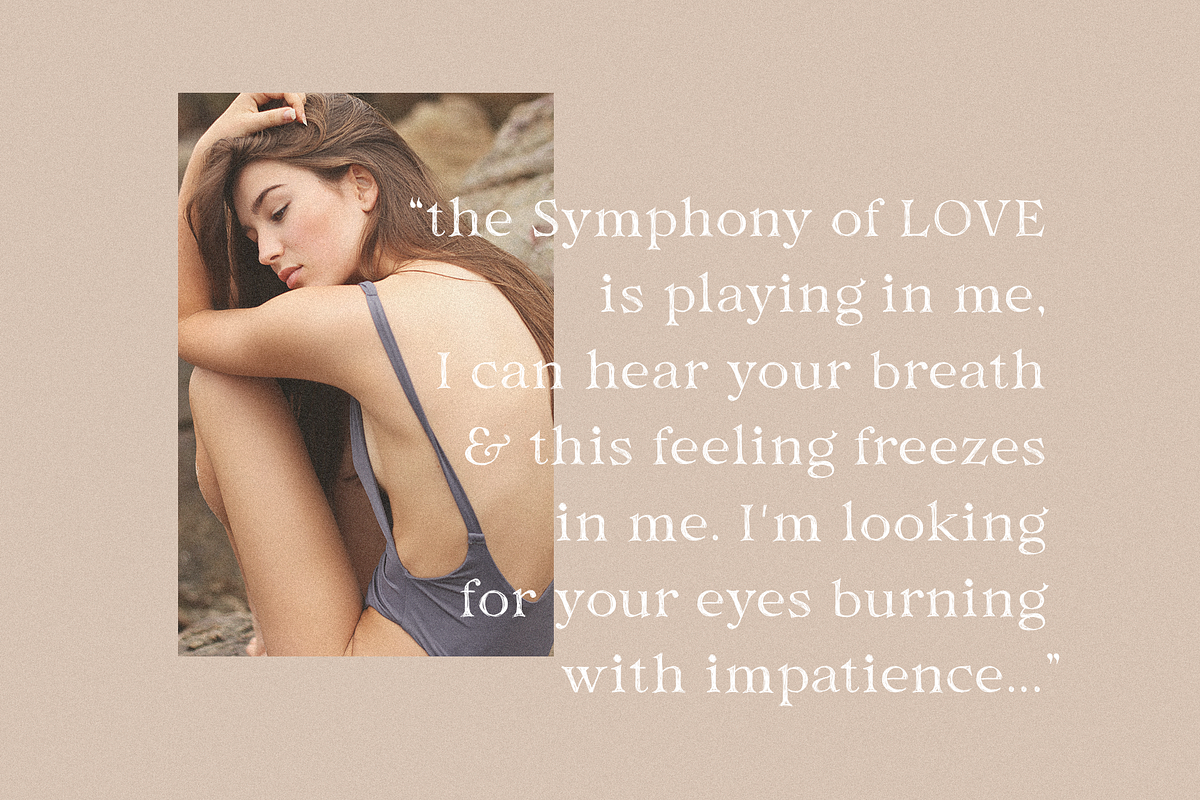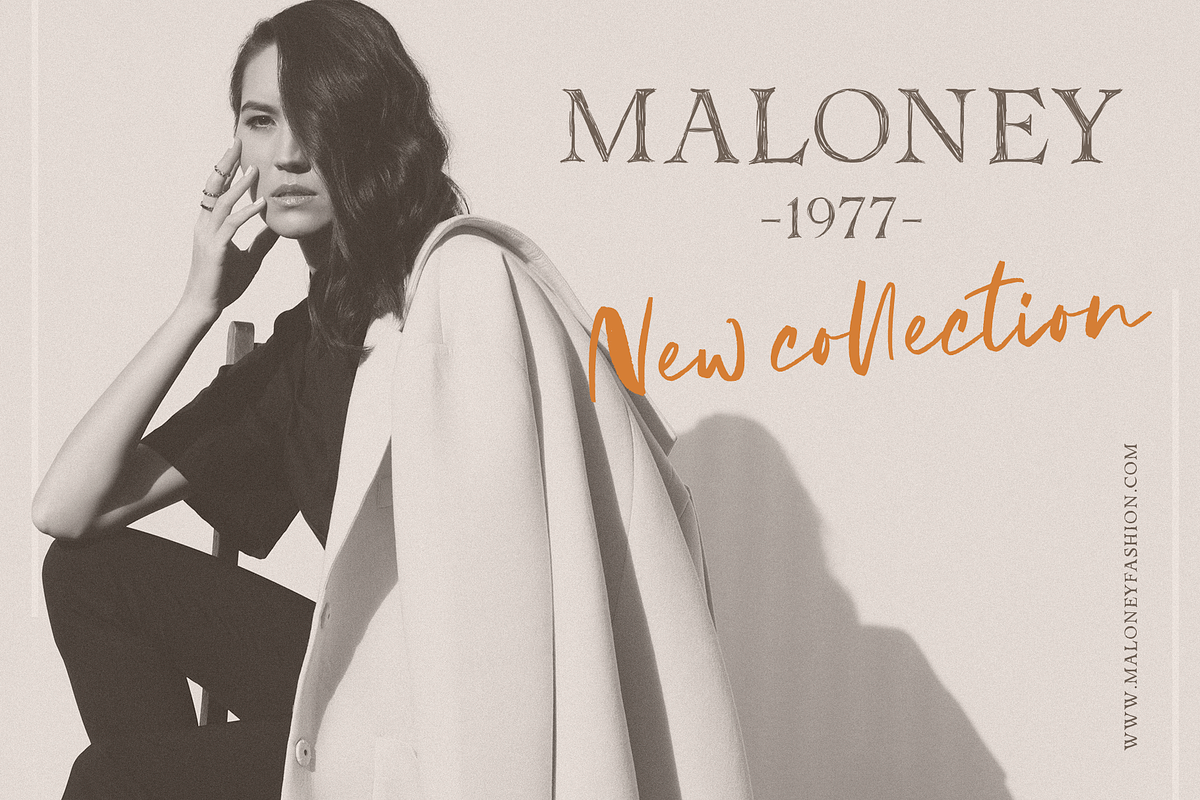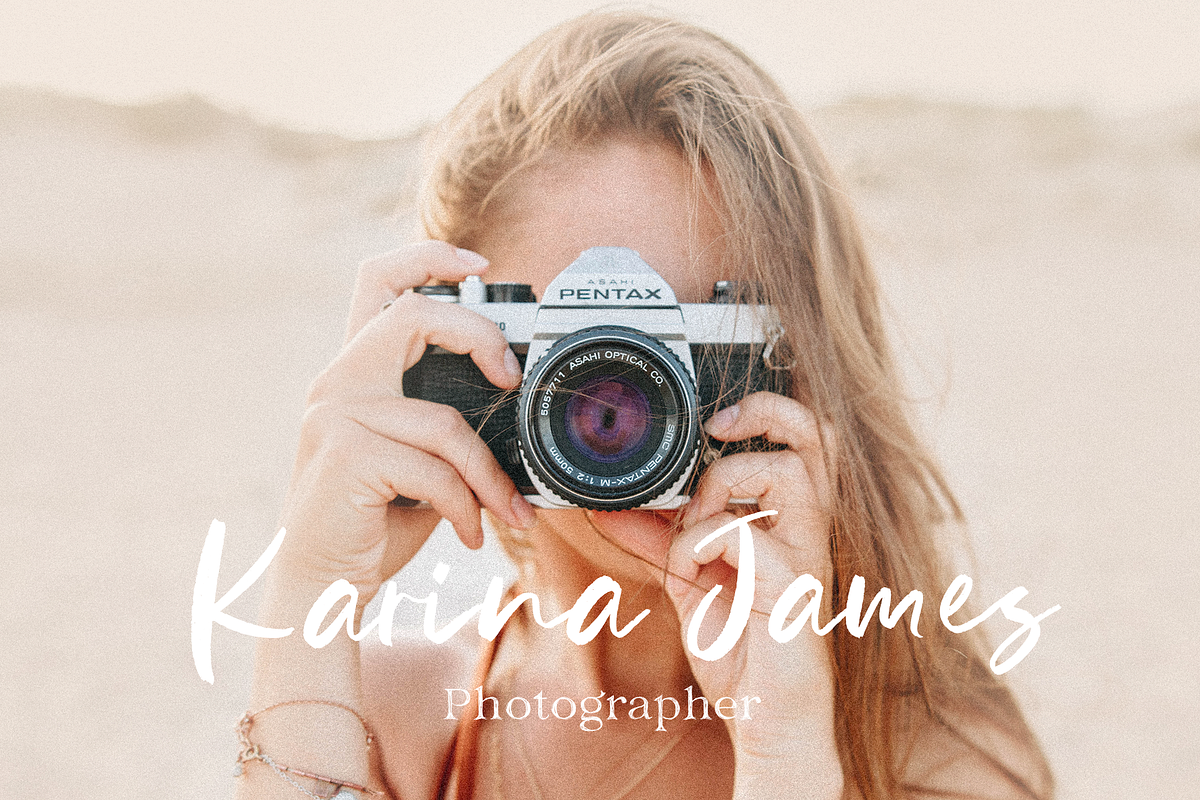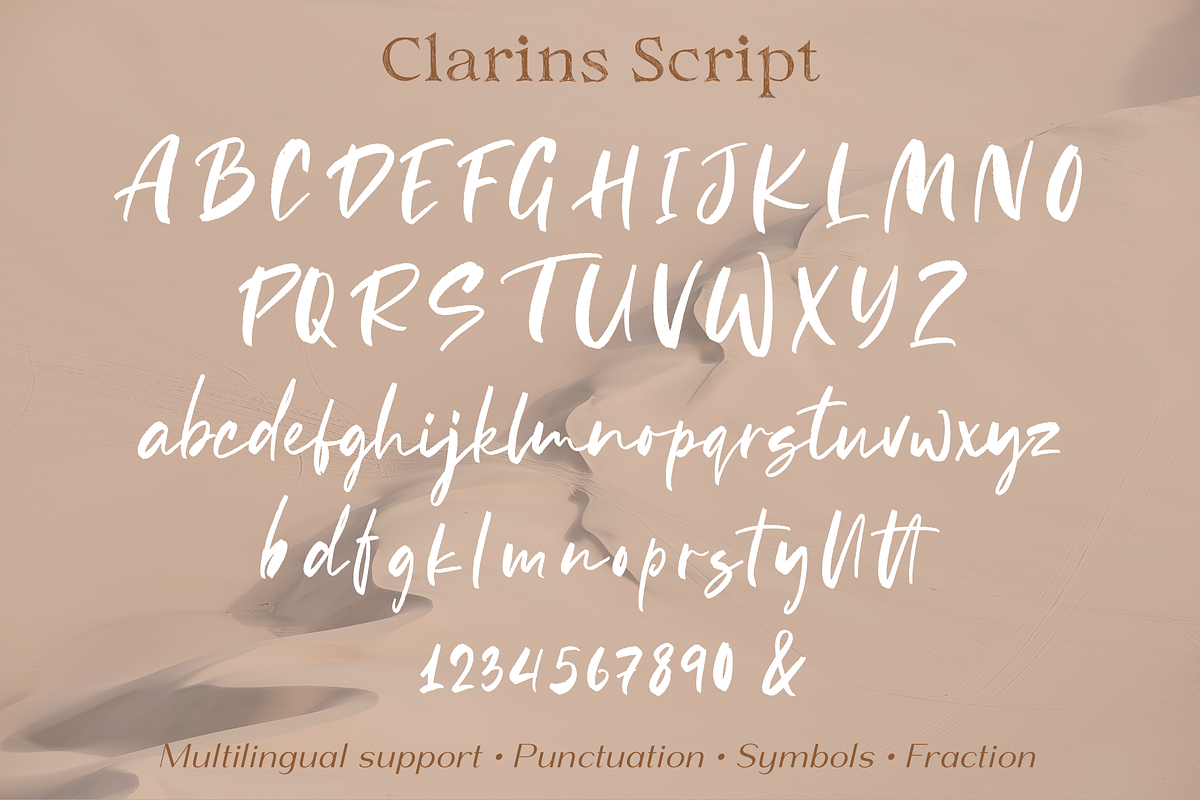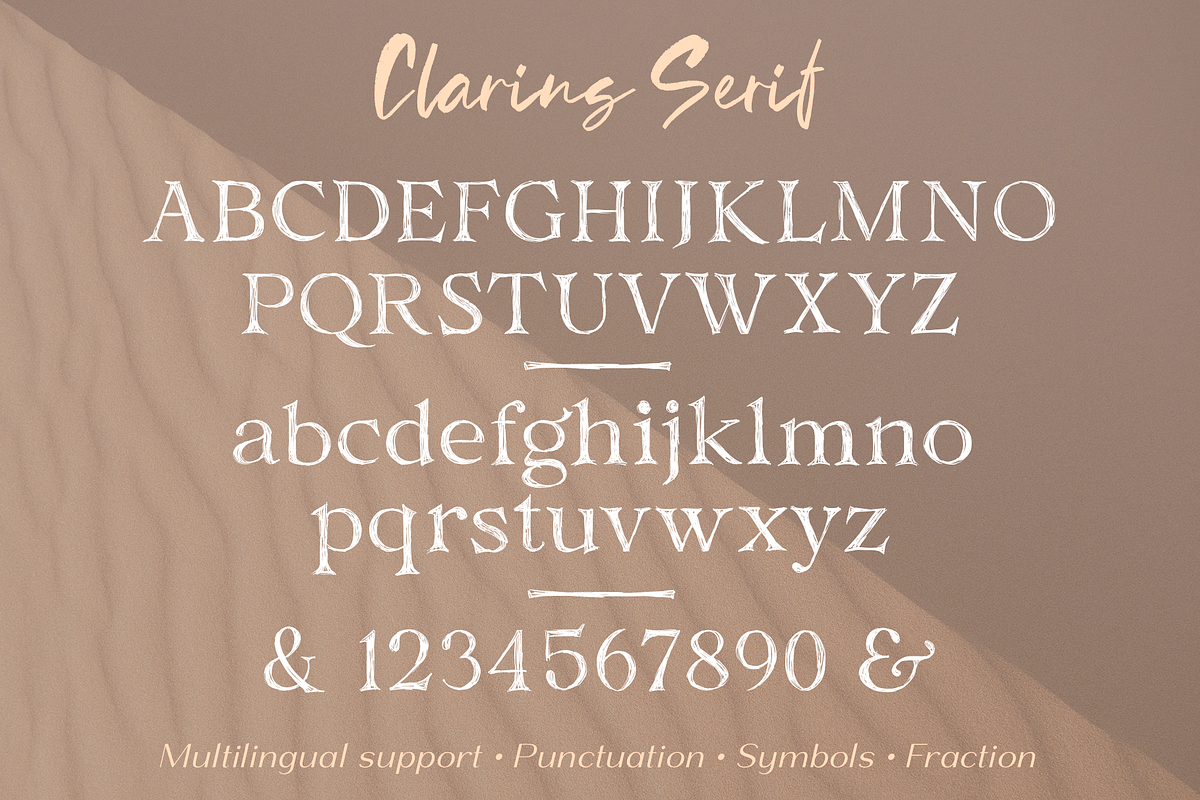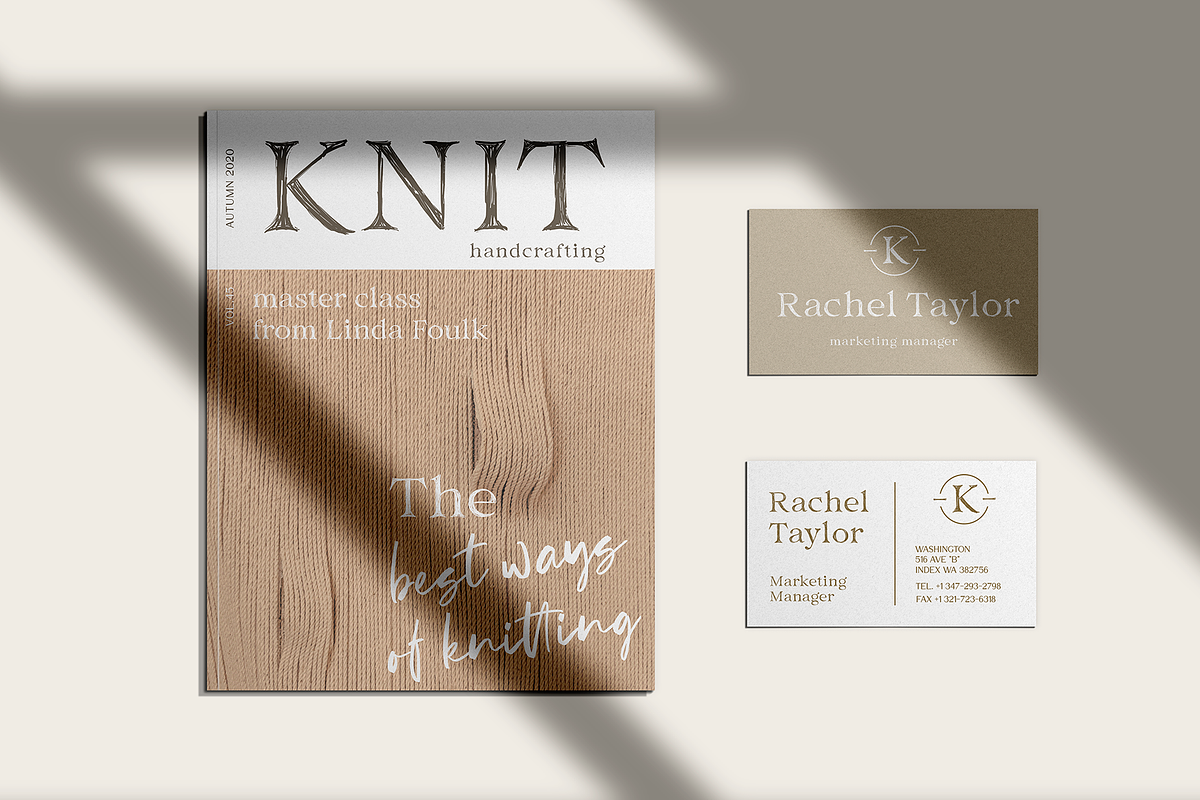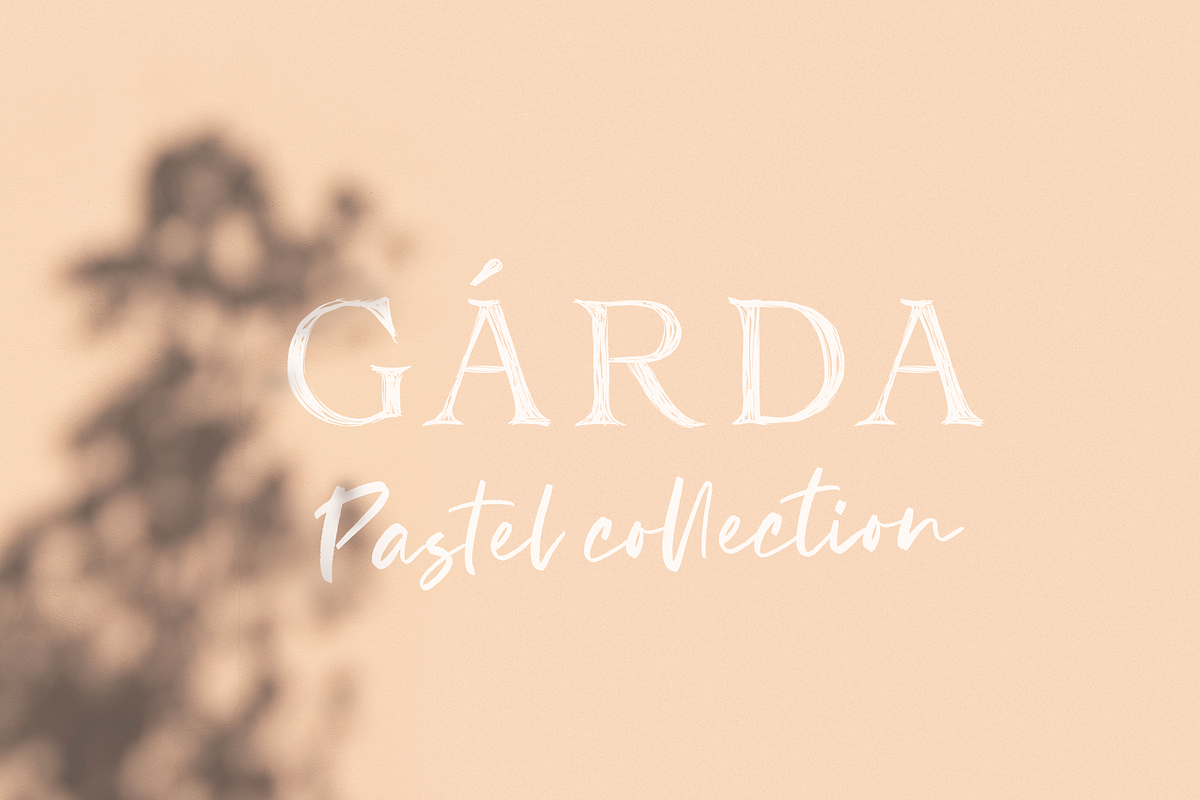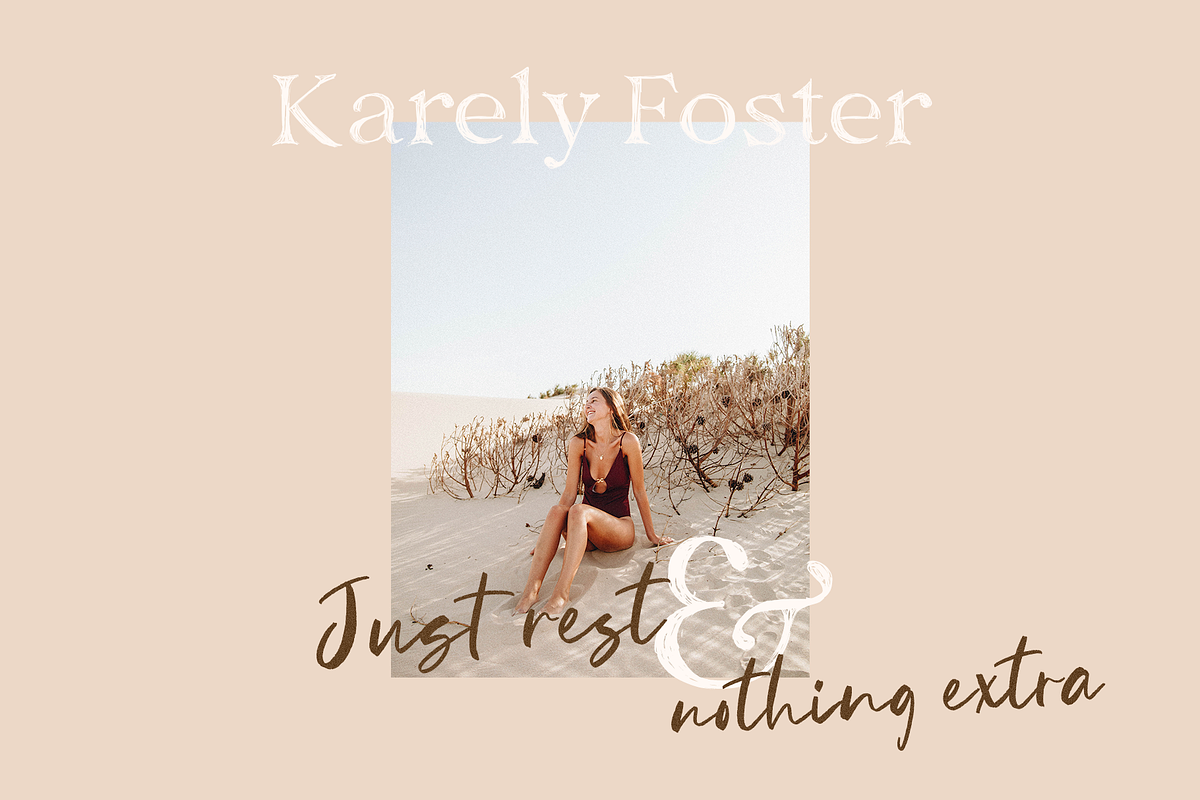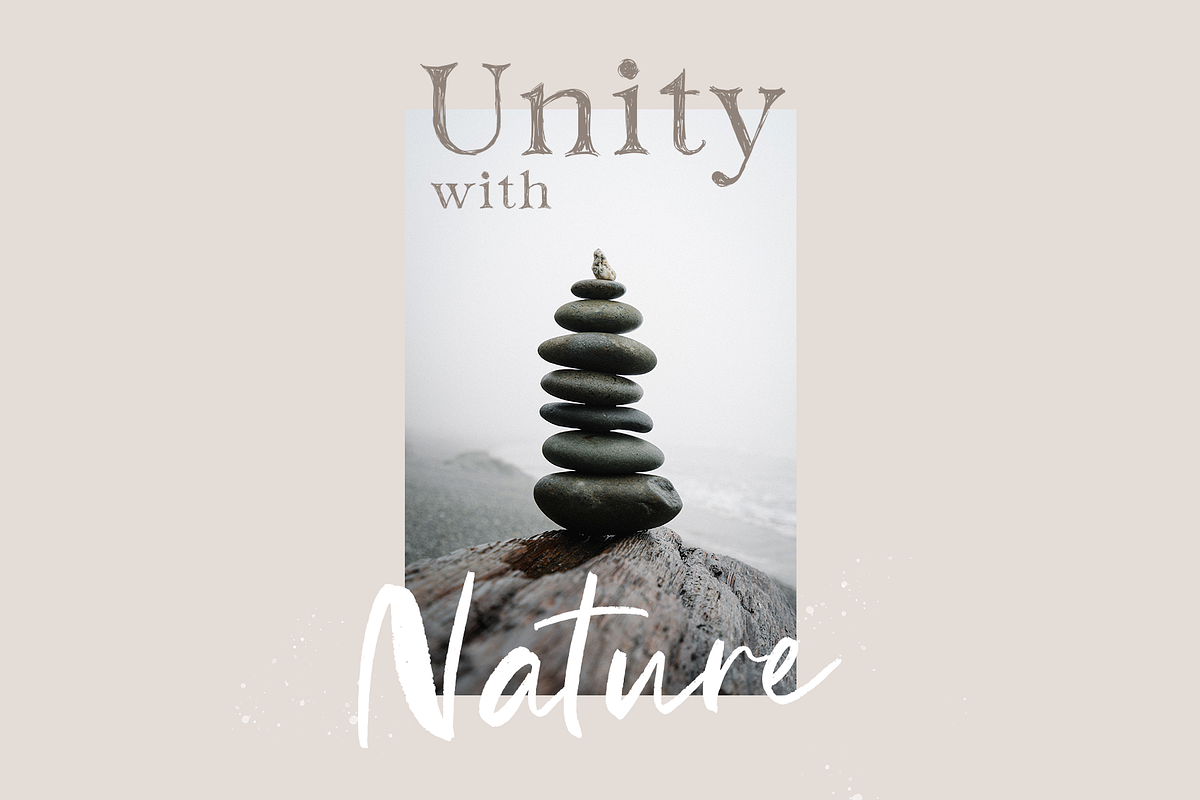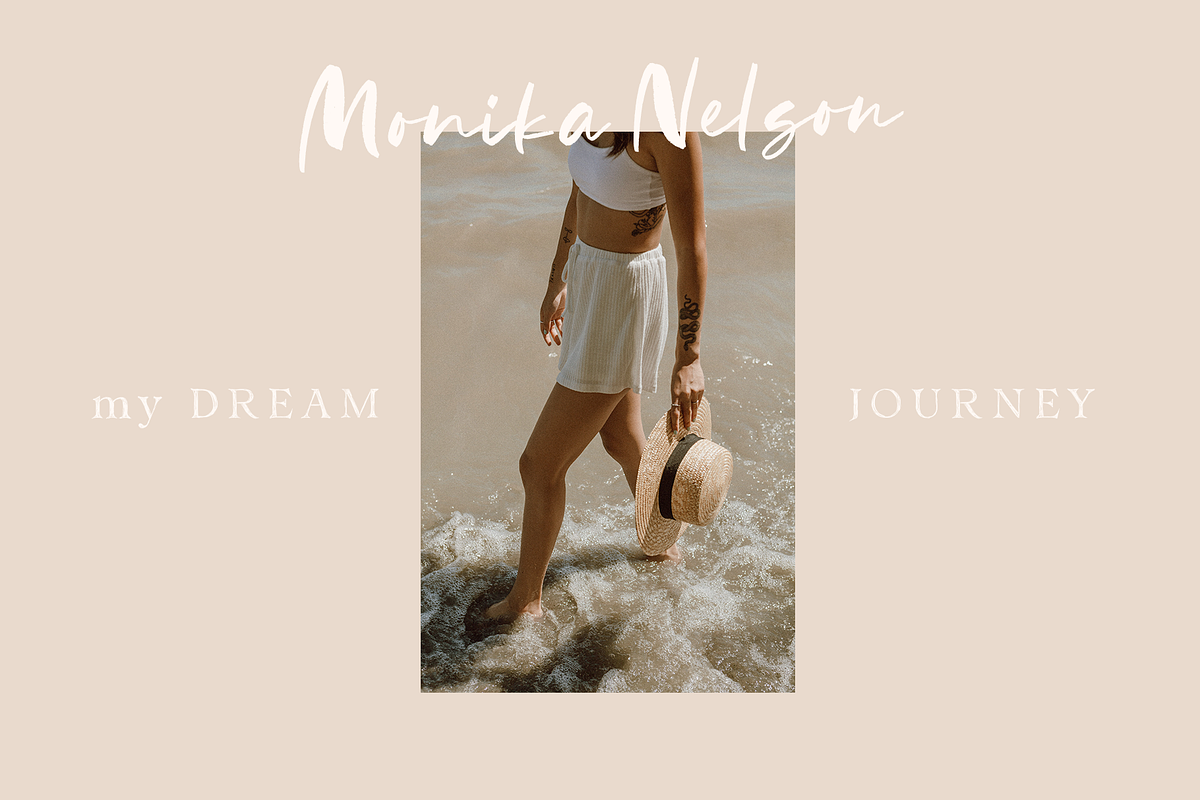
Clarins
Clarins This is a beautiful font duo that includes a Serif and a Script font.
These fonts are written by hand and perfectly match each other, serif leaves streaks from an uneven stroke and looks a little careless and attracts attention, It will fit perfectly into a project where this inaccuracy is necessary. The script written with a brush is perfect for any project and will decorate it, as well as it includes alternates for lowercase.
Following international symbols support: ÀÁÂÃÄÅĄÇĆÈÉÊËĘÌÍÎÏÐÑŃŁÒÓÔÕÖØÙÚÛÜŚŠŸÝŹŻŽßàáâãäåçèéêëìíîïðñòóôõöøùúûüýÿąćęłńśšźżž
Full alphabet with Uppercase and Lowercase A-z for script and serif.
Numbers, fractions for script and serif.
Punctuation and mathematical symbols for script and serif.
Alternates Lowercase for script font
Multilingual support all fonts